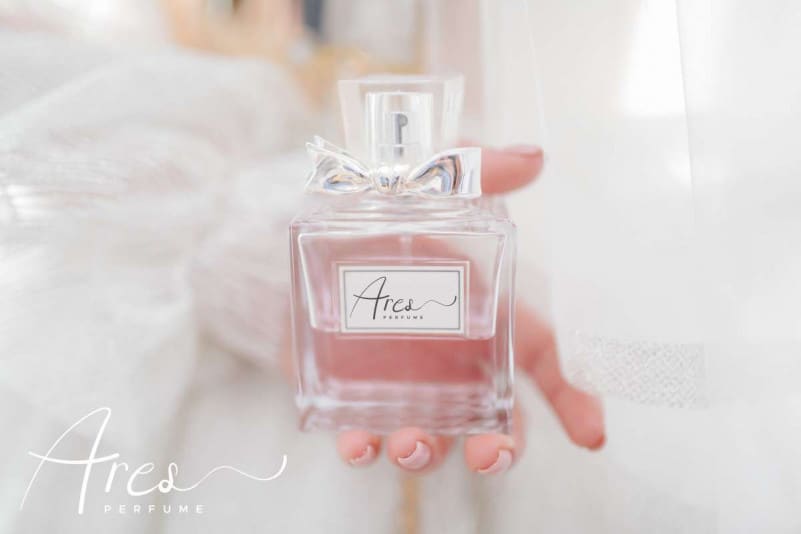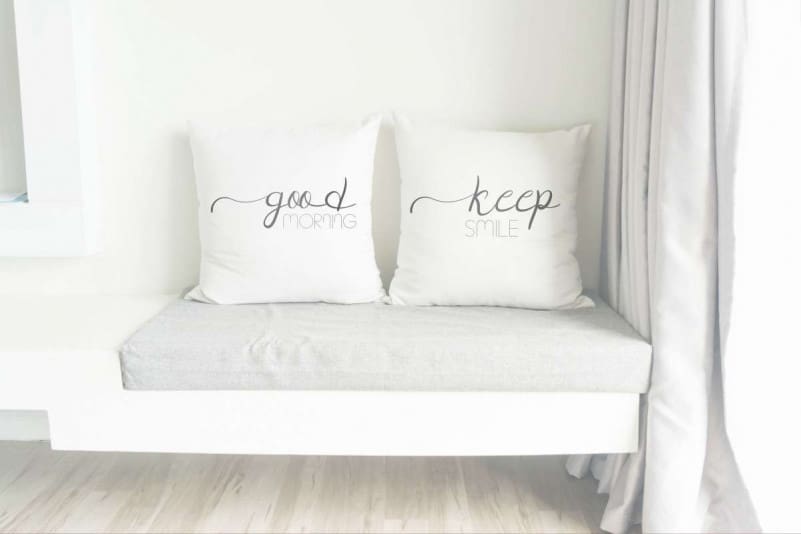
Peace Boy Font Duo
Peace Boy Font Duo is exclusive font family with two complete different styles. These fonts have a stunning characters set, perfectly managed with well spaced and kerning. The theme style of this font will elegant, vintage, casual, chich, stylish, sophisticated and classic style.
Peace Boy Font Duo will be great for any projects including : branding, logo, stationery, business card, signage, flyer, brochure etc. Almost all industries will be match for this typeface: wedding, events, real estate, architect, law firm, florist, gardening, makeup artist, travel, hotel, musician etc